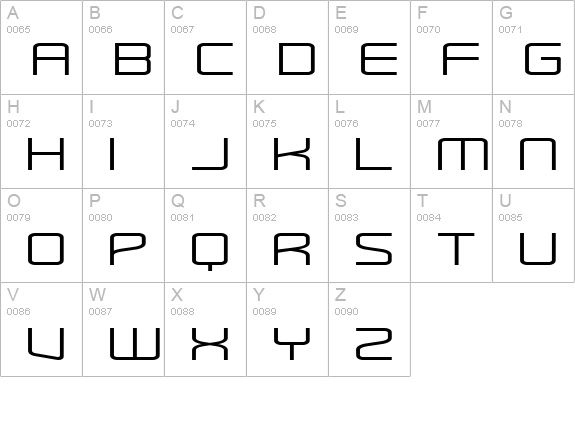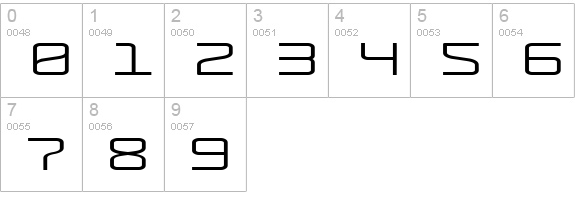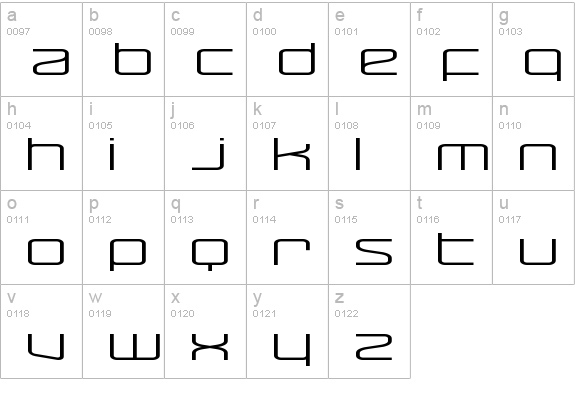
RaveParty Wide is a distinctive, extended-width variant in the RaveParty typeface family \xE2\x80\x94 well suited to design and typography projects.
RaveParty Wide font is a vibrant and energetic typeface that is perfect for adding a fun and lively touch to your designs. With its bold and playful style, this font is sure to make a statement and grab attention. Whether you're creating posters, flyers, or social media graphics for a party or event, RaveParty Wide font will help you stand out from the crowd. And the best part? RaveParty Wide font is completely free to download at FontsMarket.com. So go ahead and add this exciting font to your collection today and let your creativity run wild!